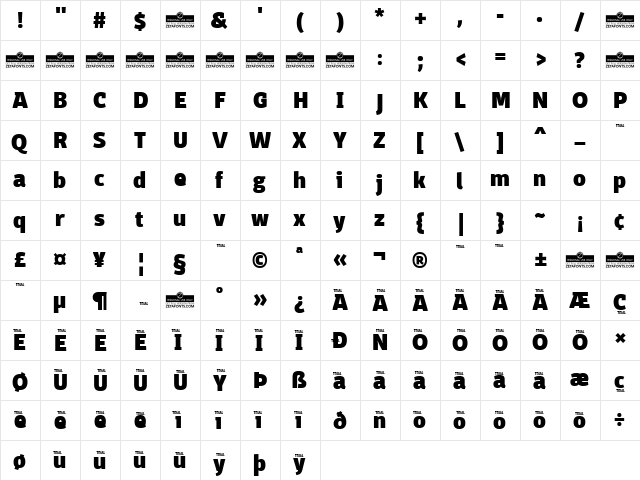
Domotika Trial Heavy
| Foundry | Studio Kmzero |
| Designer | Cosimo Lorenzo Pancini |
Design Context for Domotika Trial Typeface
Domotika Trial takes a measured approach to typography — its balanced proportions and neutral character make it a reliable workhorse for both digital and print work.